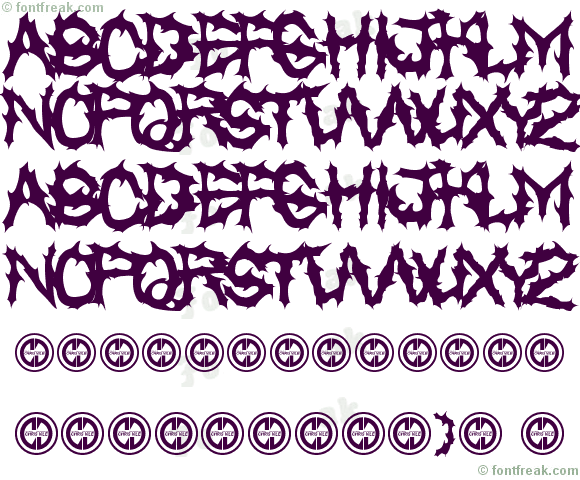
Chased Through The Woods
Chased Through The Woods, created by Chris Vile, is a captivating decorative typeface that embodies a whimsical yet somewhat eerie aesthetic. This font features bold, jagged letterforms that mimic the wildness of nature, making it an intriguing choice for various creative projects. The stroke weight is inconsistent, with sharp, pointed tips that add a dynamic flair, while the spacing between characters maintains a cohesive flow, enhancing readability despite its unique style.
This font is particularly well-suited for use in a variety of specific applications. It shines in designs for Halloween-themed events, where its wild appearance can evoke a sense of mystery and enchantment. Additionally, it can add character to movie posters, especially in the horror or fantasy genres, where a touch of the unconventional can capture attention. Chased Through The Woods also works beautifully for children's book covers, fostering imagination and intrigue with its playful yet slightly spooky vibe. Restaurant menus that focus on rustic or themed dining experiences can benefit from this font's adventurous spirit, making it a versatile choice. Lastly, it can be used in graphic designs targeting nature lovers or outdoor enthusiasts, providing a thematic connection that resonates with the audience.
What sets this font apart is its ability to evoke a sense of adventure and imagination, transporting viewers into a wild, untamed world. Whether for casual projects or professional designs, Chased Through The Woods stands out as a memorable and engaging typeface that inspires creativity.